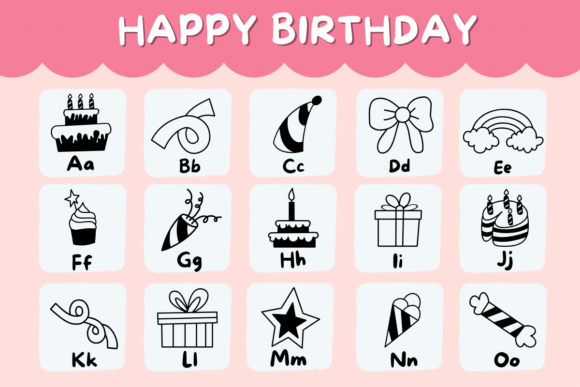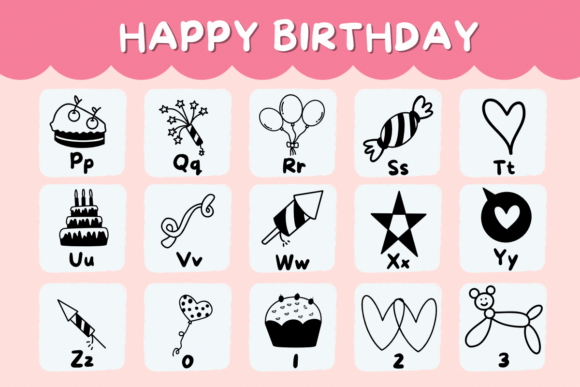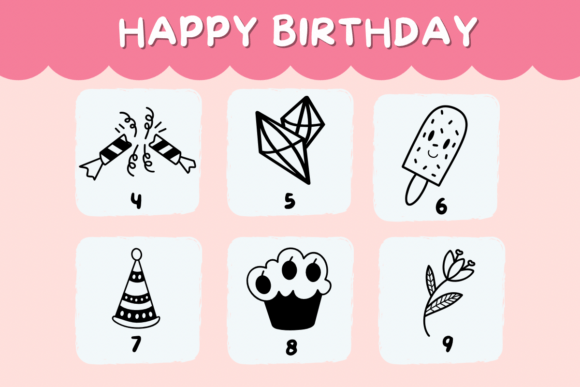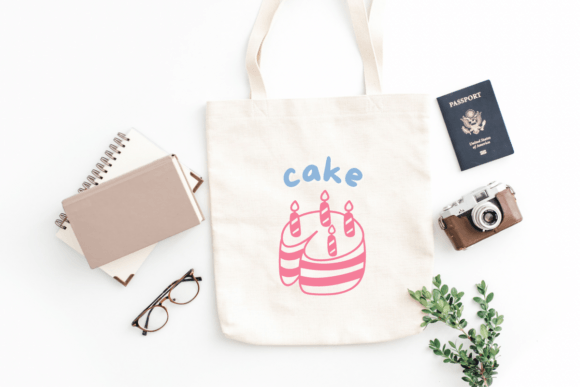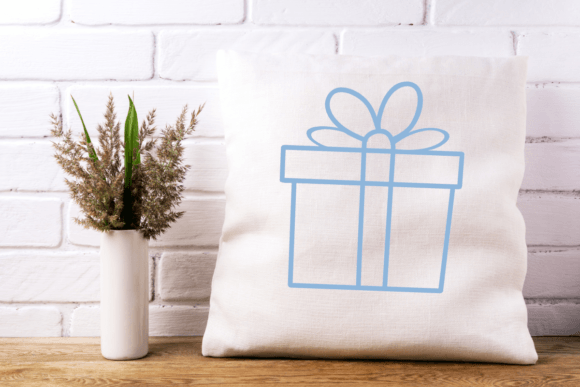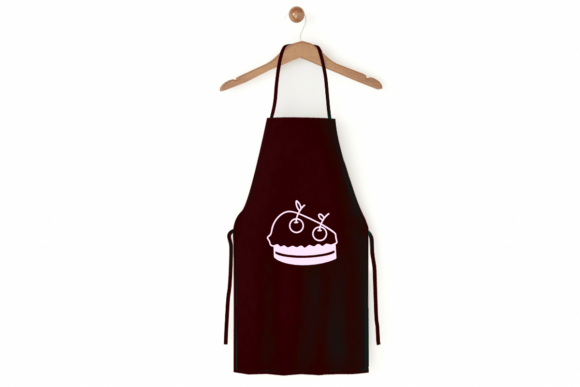
Happy Birthday Font: Add a Festive Touch to Your Celebrations
Are you looking for a fun and creative way to add a personal touch to your party invitations, cards, and decorations? Look no further than the Happy Birthday font, a delightful dingbat font filled with birthday-themed icons. This playful font is perfect for designers and crafters who want to make their celebrations truly special.
What is Happy Birthday Font?
The Happy Birthday font is a unique and festive font that replaces each letter with a variety of birthday-themed icons, such as cakes, balloons, candles, and gifts. This fun and playful font is designed to add a celebratory touch to any project, making it perfect for party invitations, birthday cards, and decorations.
Features of Happy Birthday Font
- Festive Icons: Each letter is replaced by a variety of festive icons, including cakes, balloons, candles, and gifts.
- Playful Design: The font has a playful and fun design, making it perfect for celebrations and parties.
- Customizable: You can customize the font to fit your needs, using it in a variety of projects, from party invitations to decorations.
Uses of Happy Birthday Font
The Happy Birthday font is perfect for a variety of projects, including:
- Party Invitations: Add a festive touch to your party invitations with the Happy Birthday font.
- Birthday Cards: Create personalized birthday cards with the font’s fun and playful icons.
- Decorations: Use the font to create custom decorations, such as banners and garlands.
- Social Media Posts: Add a celebratory touch to your social media posts with the Happy Birthday font.
Benefits of Using Happy Birthday Font
Using the Happy Birthday font has several benefits, including:
- Save Time: The font saves you time and effort, allowing you to create custom projects quickly and easily.
- Increase Creativity: The font’s playful design and festive icons can help inspire your creativity and add a unique touch to your projects.
- Perfect for Celebrations: The font is perfect for celebrations and parties, making it a great addition to your design toolkit.
Here are some tips and tricks for using the Happy Birthday font:
- Mix and Match: Mix and match different icons and colors to create a unique and personalized design.
- Experiment with Sizes: Experiment with different font sizes to create a visually appealing design.
- Add Images: Add images and graphics to your design to make it more engaging.
The Happy Birthday font is a fun and creative way to add a festive touch to your celebrations. With its playful design and festive icons, it’s perfect for designers and crafters who want to make their parties and celebrations truly special. Whether you’re creating party invitations, birthday cards, or decorations, the Happy Birthday font is a great addition to your design toolkit.